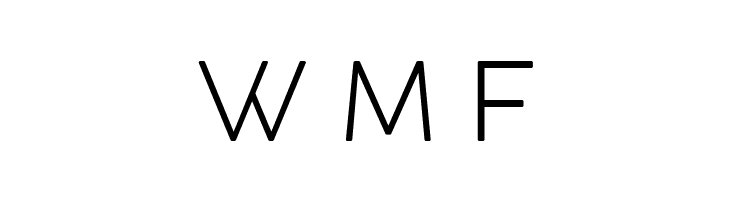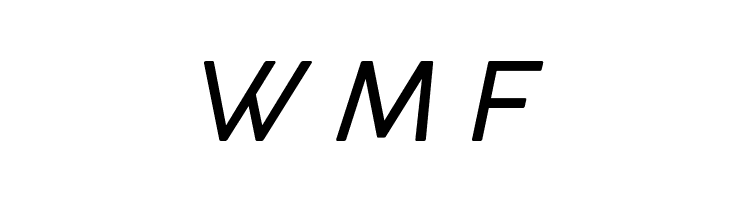
Cocogoose Pro UltraLight Font
A modern, ultra-light sans-serif font with a sleek and minimalist design.
Cocogoose Pro Light Italic Font
Zetafonts - www.zetafonts.com
A modern, light, and italic sans-serif font with clean lines and elegant curves.